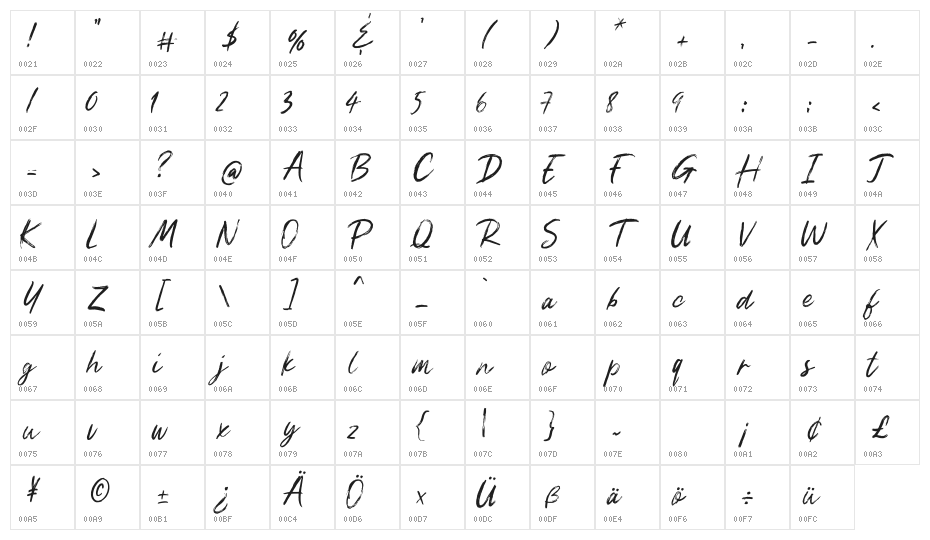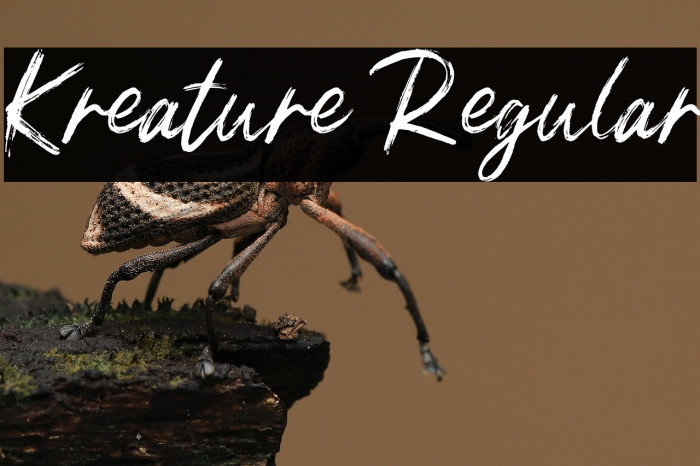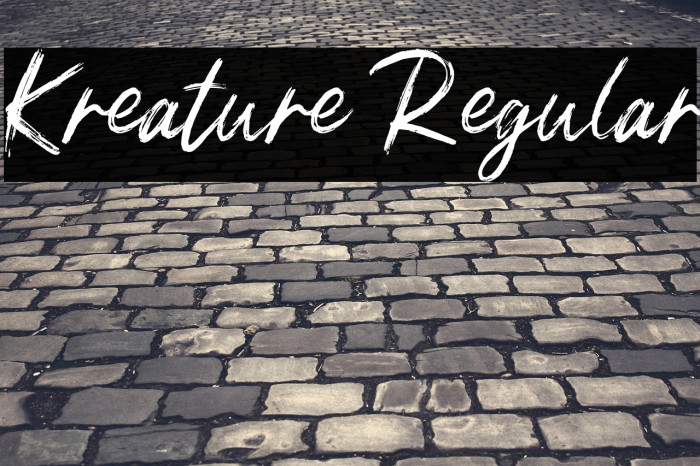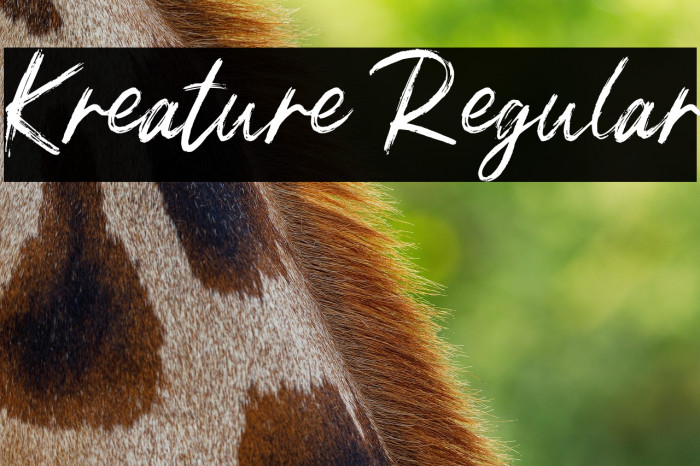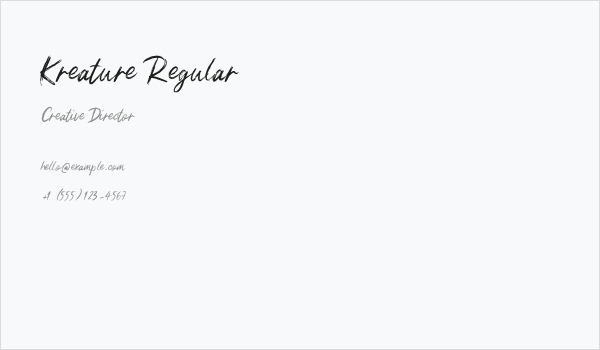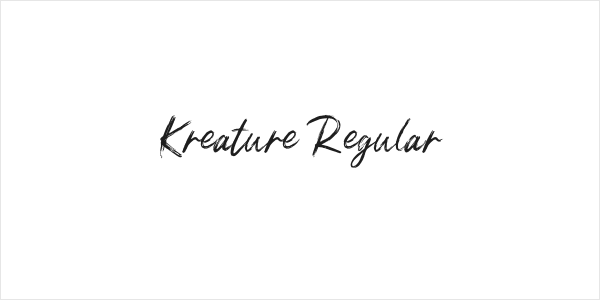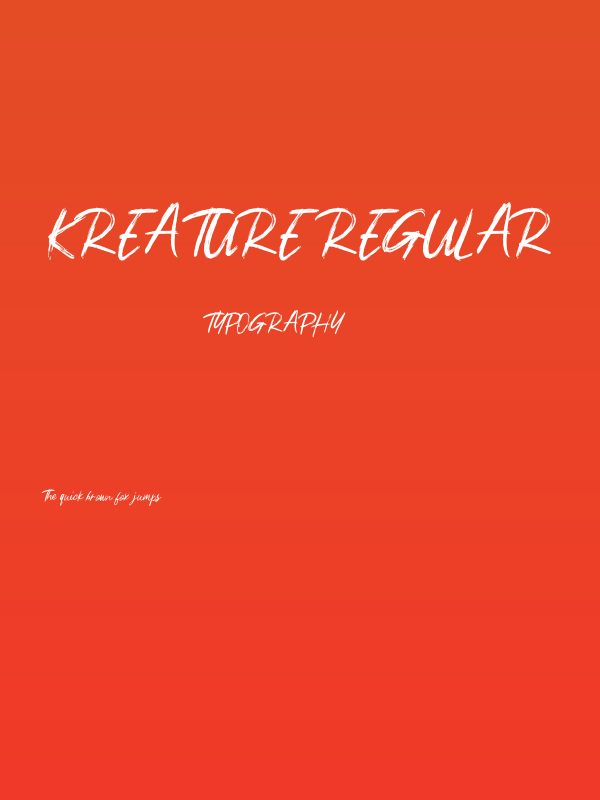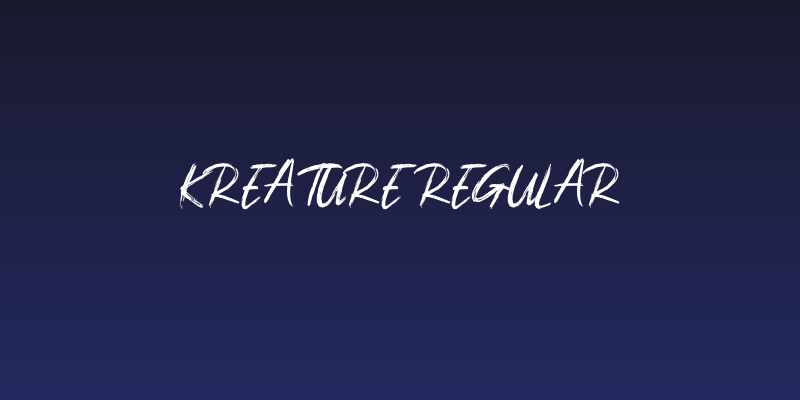
Kreature Regular Font
Kreature Regular Description
This font exhibits a dynamic and energetic style, characterized by its brush-like strokes and fluid motion. The letters have a hand-drawn appearance, with varying stroke thickness that adds a sense of movement and spontaneity. The uppercase letters are bold and expressive, while the lowercase letters maintain a consistent flow, enhancing the overall aesthetic. Numbers and special characters follow the same artistic approach, making the font versatile for creative projects. The irregular edges and varying angles contribute to its unique, artistic flair.
| Proposed Projects | Ideal for artistic projects, branding, posters, and any design requiring a bold, creative touch. |